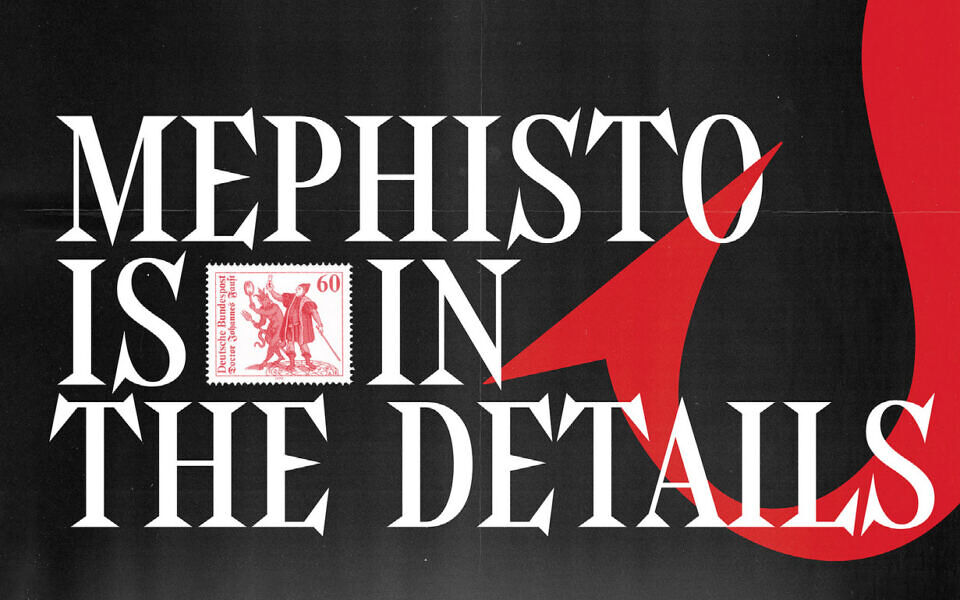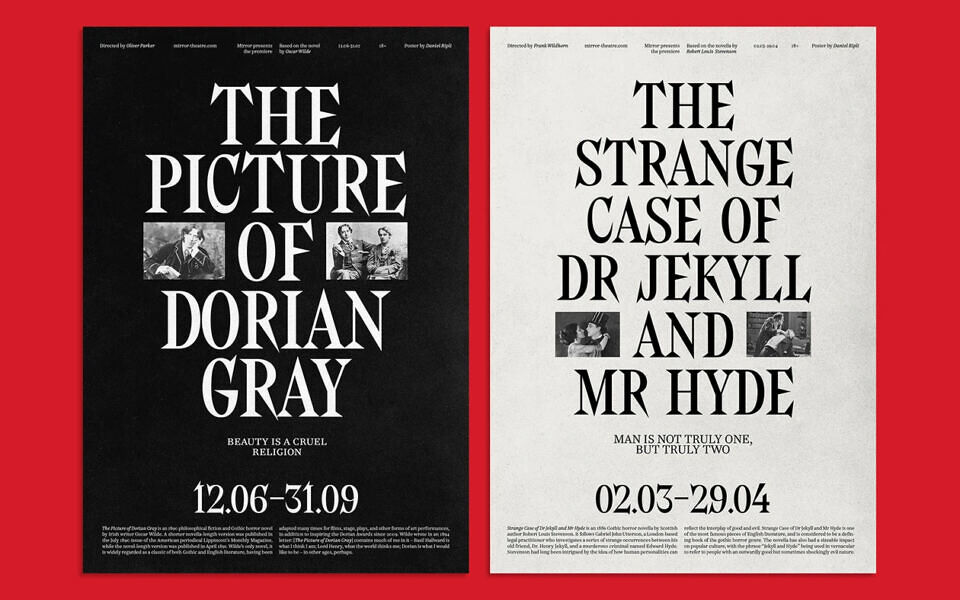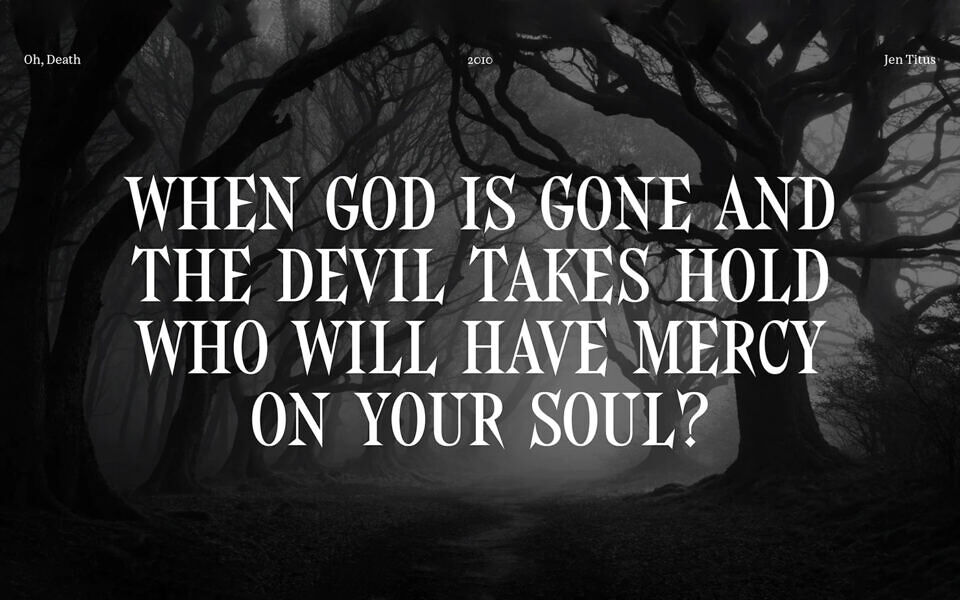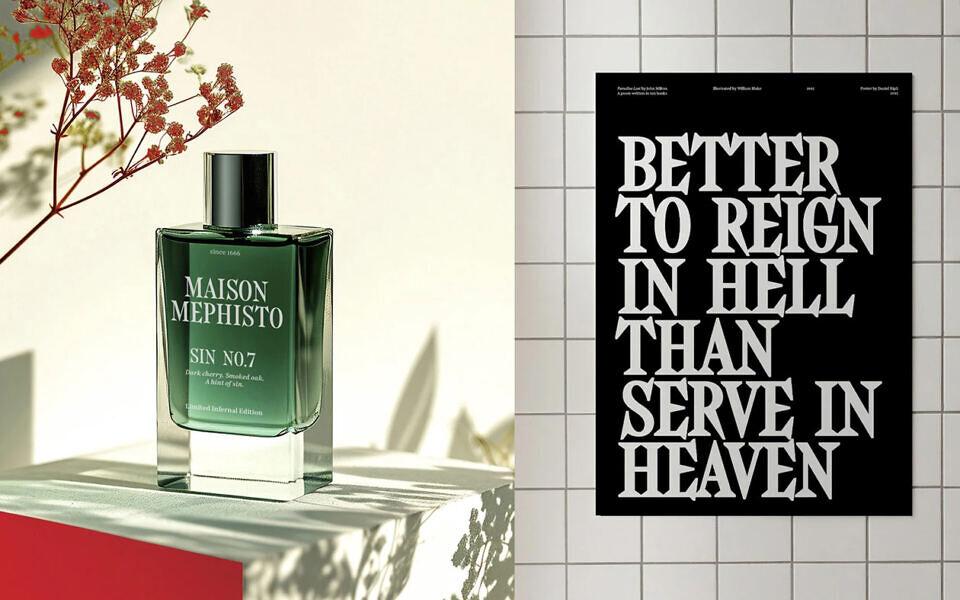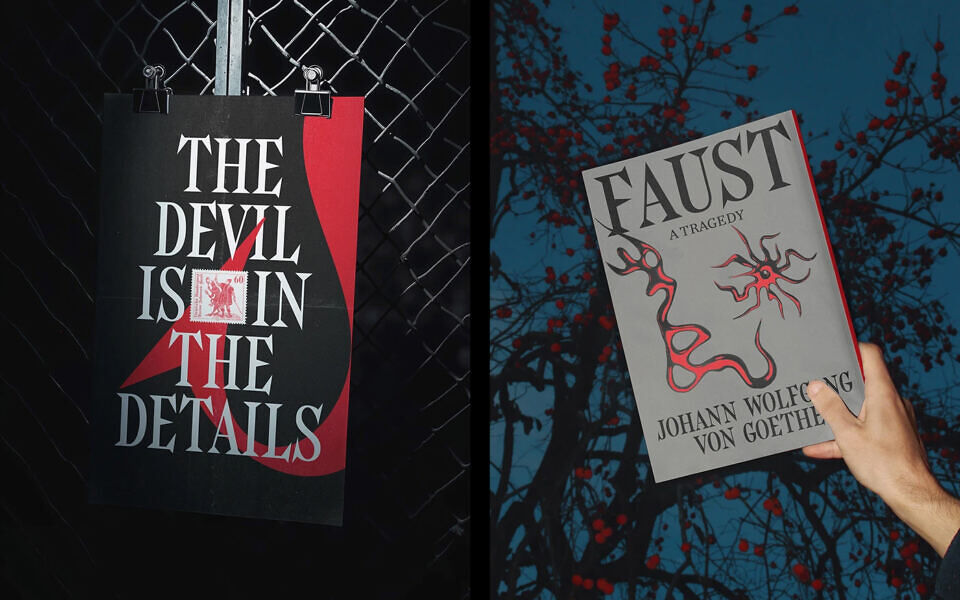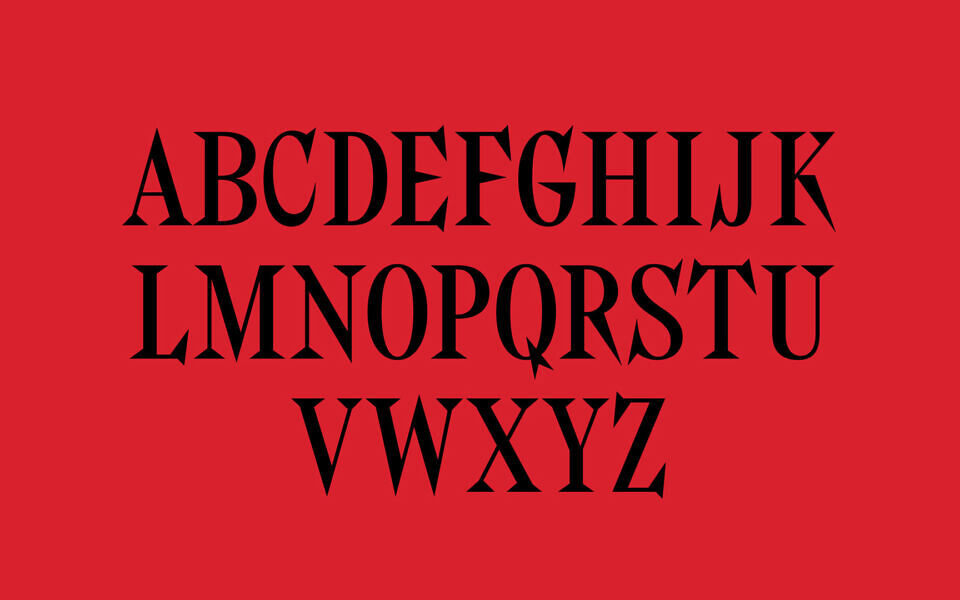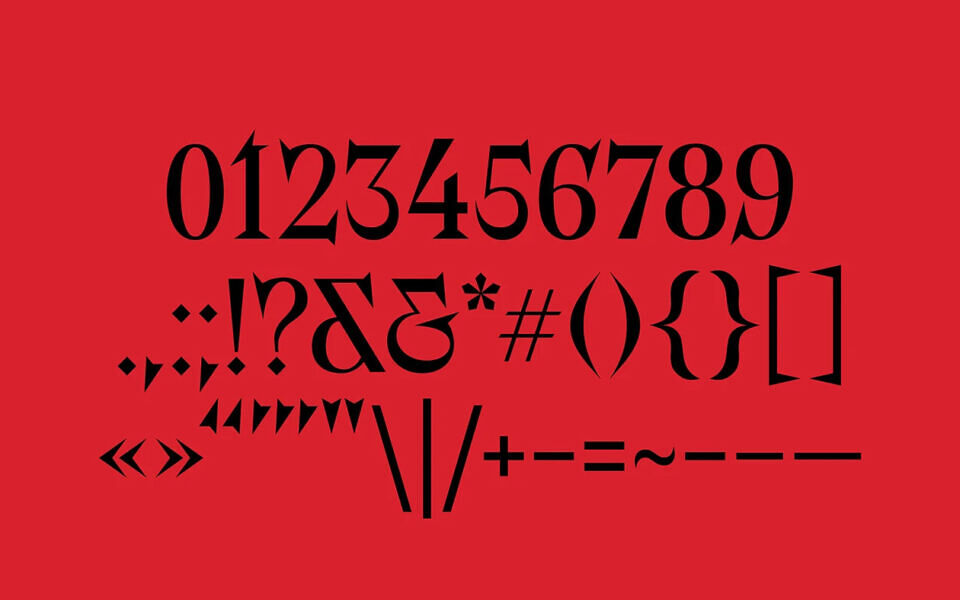
Mephisto Font
Mephisto is a display serif typeface with a sly, ironic personality, named after Goethe’s iconic antagonist—the devilish trickster Mephistopheles. It features razor-sharp serifs, pointed terminals, and a richly contrasted design, paired with subtly condensed letterforms for a refined yet mischievous presence.